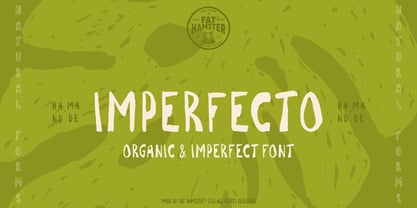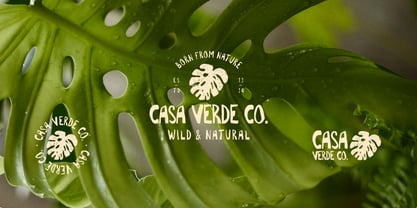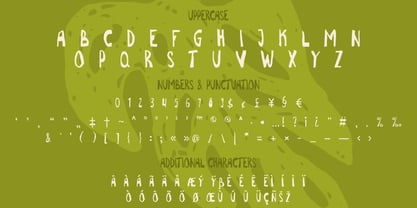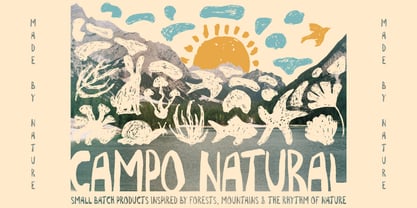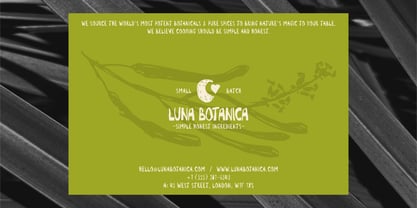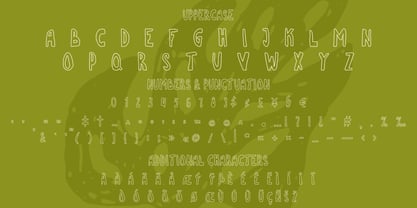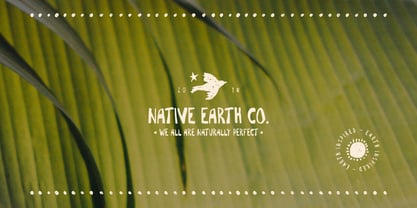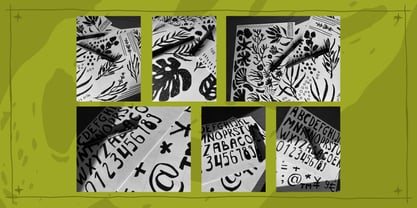
Imperfecto
The Imperfecto Font Family was designed by Alesia Kutsian, Aliaksei Hvozdzeu and published by Fat Hamster. Imperfecto contains 2 styles and family package options.
Imperfecto – Organic & Imperfect Font + Handcrafted Illustrations & Logo Templates Organic, Primitive, Handmade, Imperfect, Linocut, Natural, Rustic, Artisan, Eco, Handcrafted. Imperfecto is a hand-drawn organic typeface inspired by imperfect handmade lettering, linocut aesthetics, and natural textures. This font was created to bring warmth, authenticity, and a crafted feel to your branding projects. The set includes a full collection of hand-drawn eco-inspired illustrations and ready-to-use logo templates, making it perfect for designers, makers, and small brands looking for a natural, artisanal visual style. Imperfecto works beautifully for organic brands, eco products, natural cosmetics, food packaging, handmade goods, farmers markets, sustainable businesses, and creative branding projects. Perfect for: Organic & eco branding Handmade product packaging Natural skincare labels Farmers market designs Coffee & food branding Artisan logos Vintage inspired projects Rustic lifestyle brands
Imperfecto